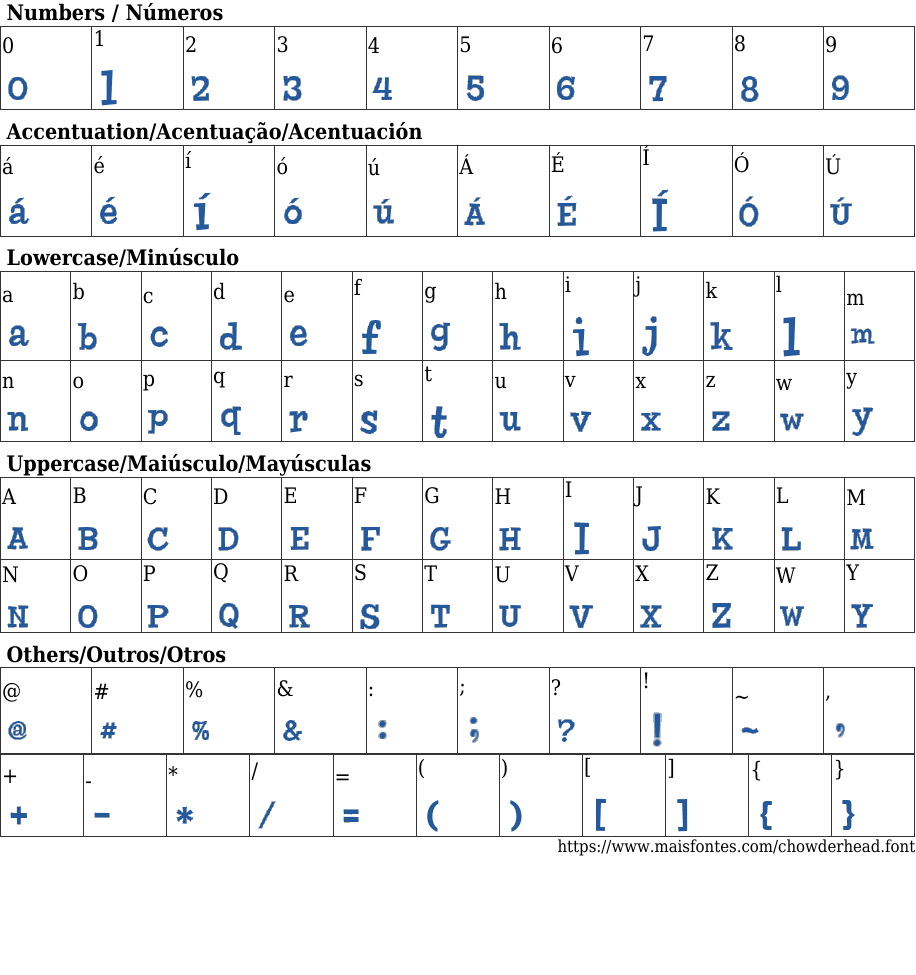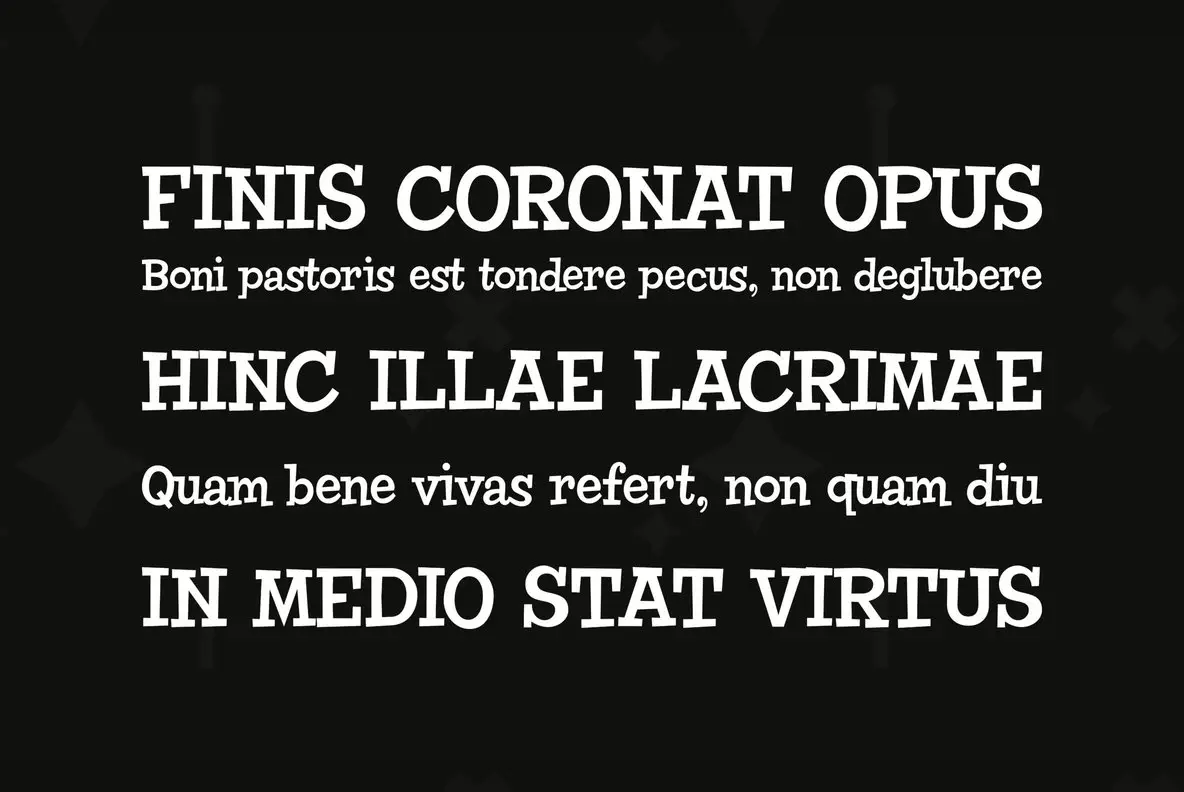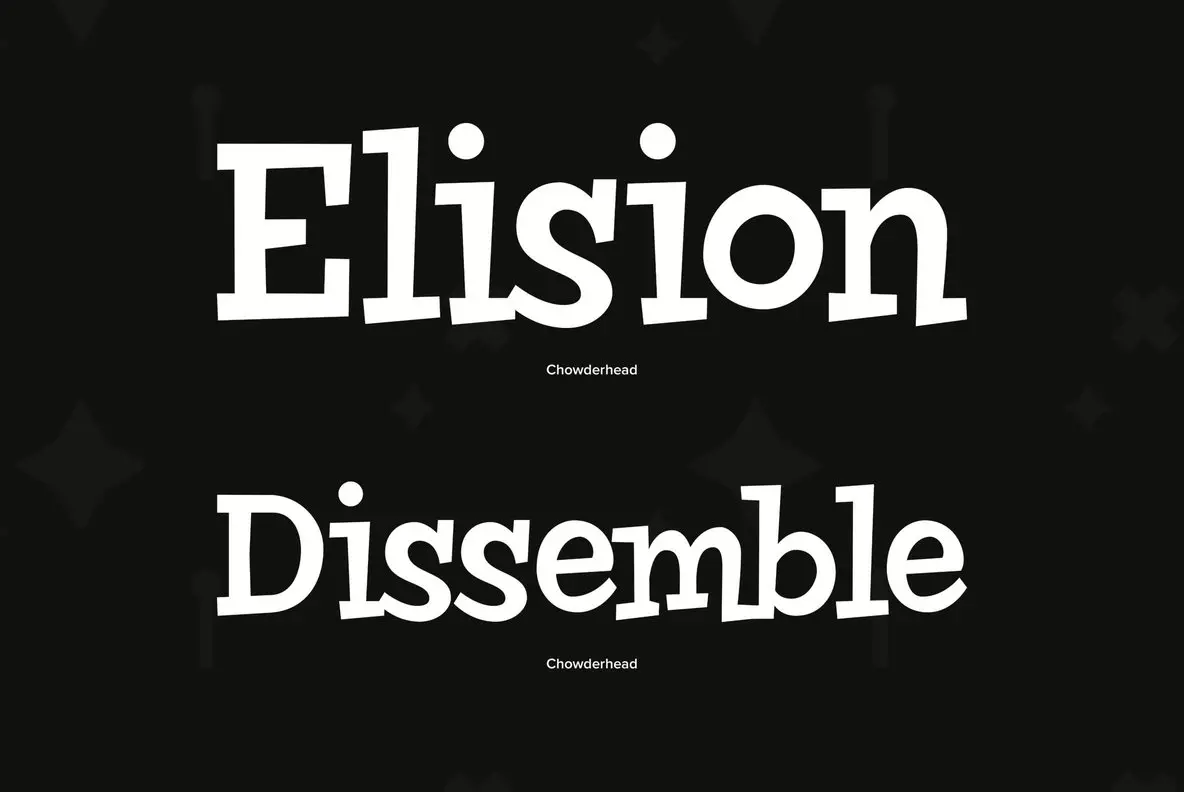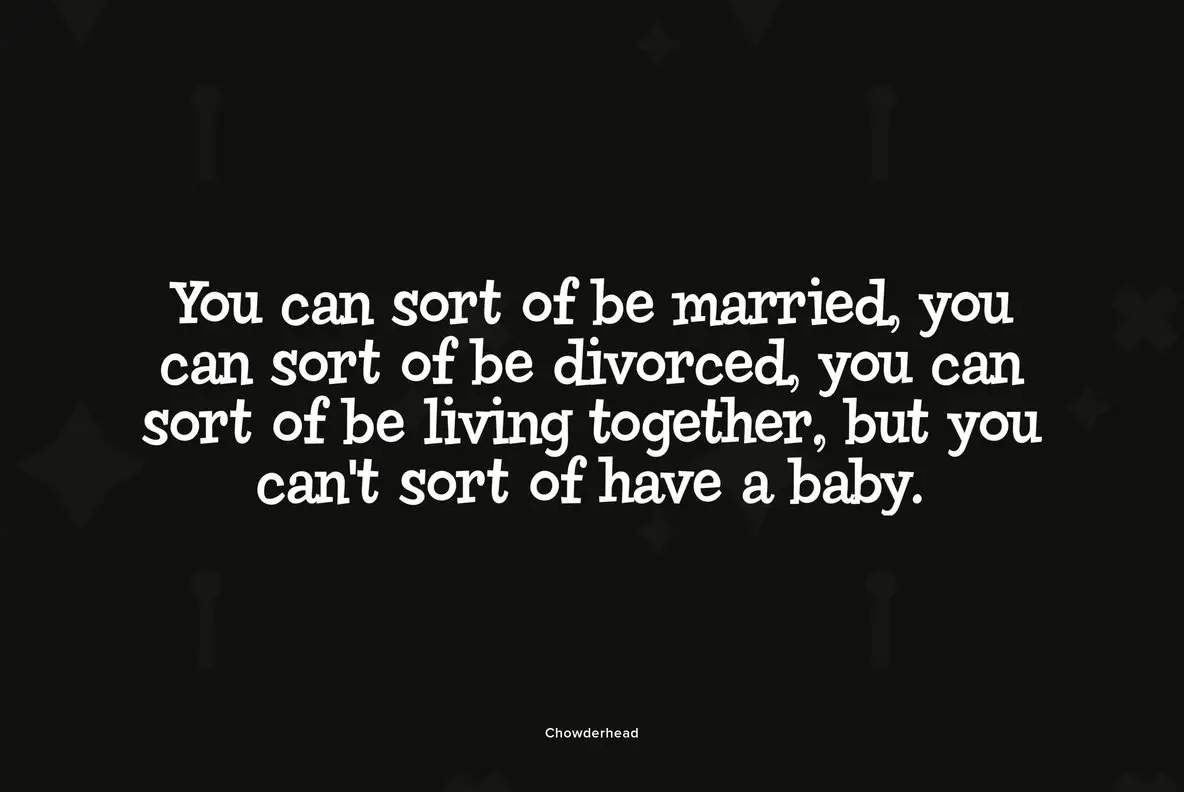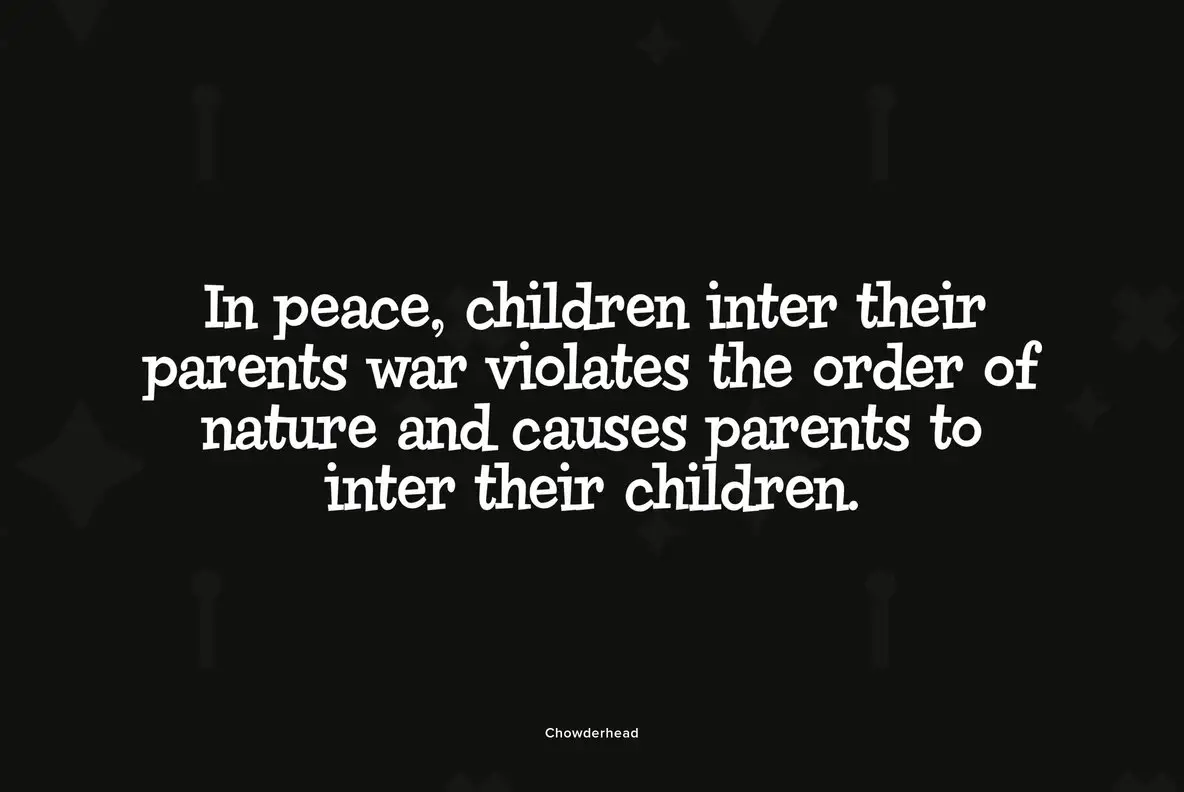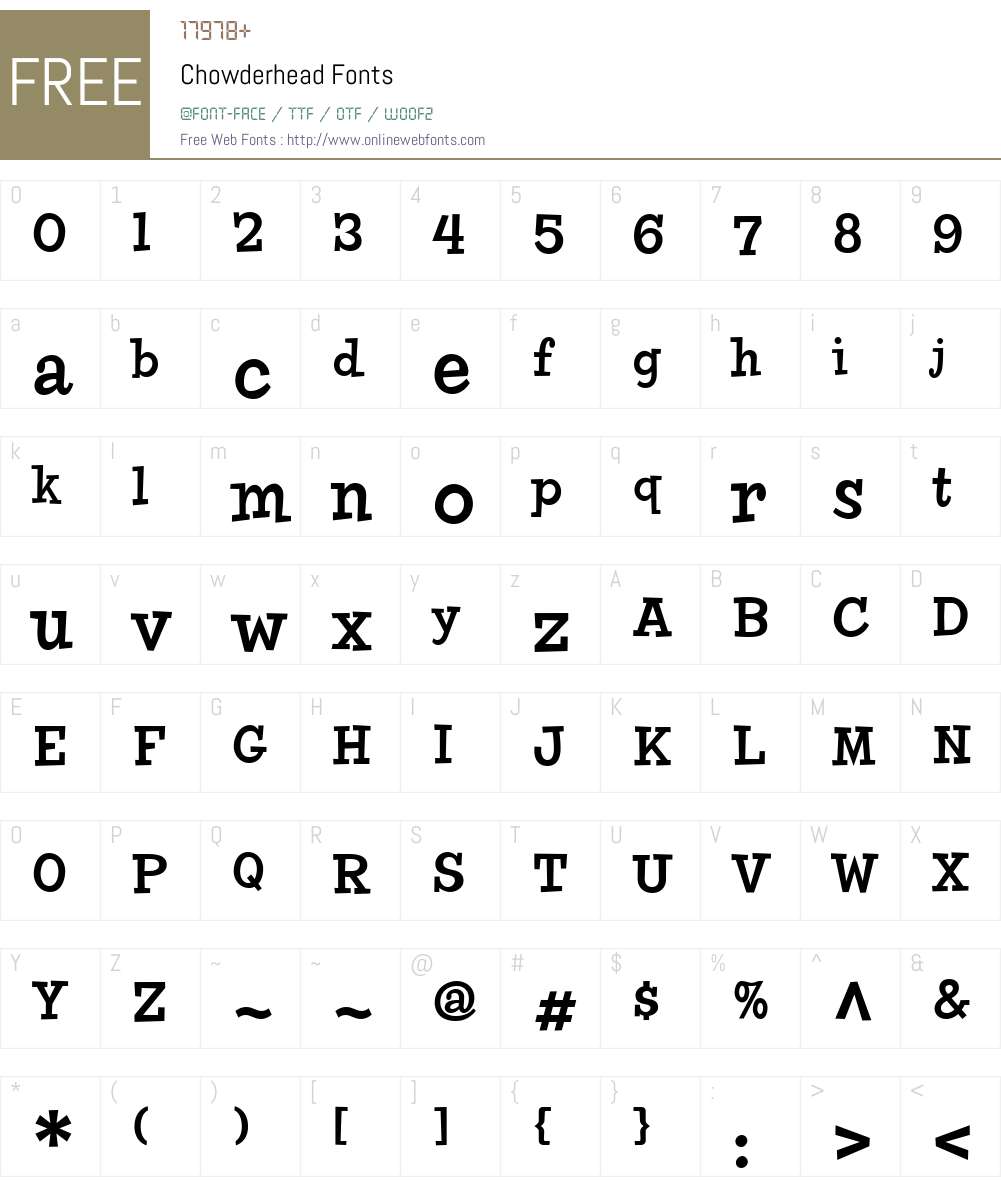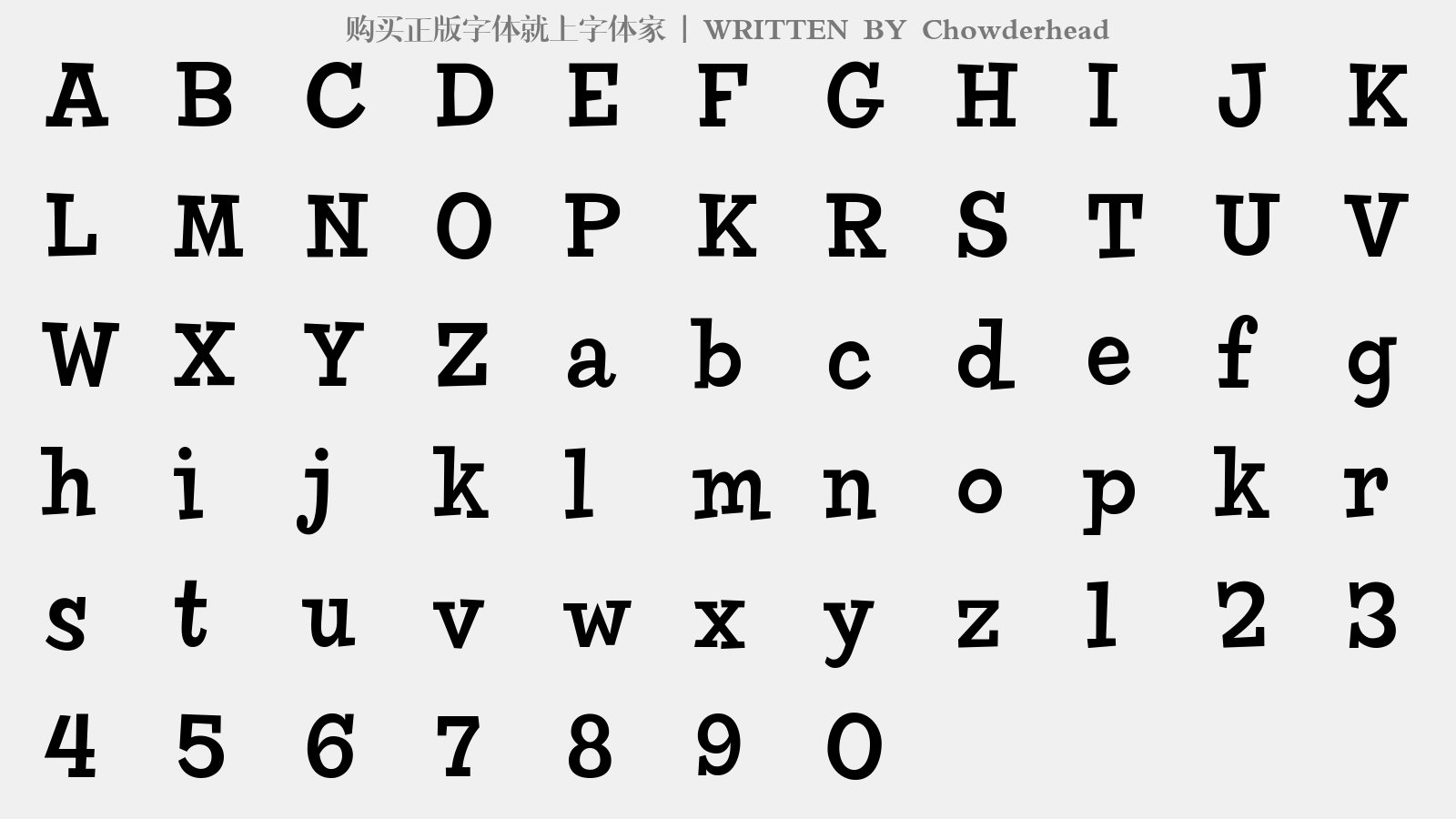
Chowder Head Font . Medium), 282 characters in total. Download 186,286 free fonts at ufonts.com. Chowderhead version 1.000 2004 initial release font (font family name: Examples and download link for the chowderhead™ font designed by stuart sandler in 2004. Chowderhead is the perfect font for all your fun designs. 'find my font' is an easy to use application for identifying fonts in digital images. The chowderhead font was designed by stuart. Dig in and get silly with this casual retro serif font! Thousands of designers (famous or not) use the image font detection system to find a font or similar free fonts from an image. Dig in and get silly with this casual retro serif font!
Chowderhead version 1.000 2004 initial release font (font family name: Dig in and get silly with this casual retro serif font! The chowderhead font was designed by stuart. Examples and download link for the chowderhead™ font designed by stuart sandler in 2004. Thousands of designers (famous or not) use the image font detection system to find a font or similar free fonts from an image. 'find my font' is an easy to use application for identifying fonts in digital images. Chowderhead is the perfect font for all your fun designs. Dig in and get silly with this casual retro serif font! Download 186,286 free fonts at ufonts.com. Medium), 282 characters in total.
Chowder Head Font Chowderhead is the perfect font for all your fun designs. Examples and download link for the chowderhead™ font designed by stuart sandler in 2004. Medium), 282 characters in total. Chowderhead is the perfect font for all your fun designs. 'find my font' is an easy to use application for identifying fonts in digital images. Thousands of designers (famous or not) use the image font detection system to find a font or similar free fonts from an image. The chowderhead font was designed by stuart. Chowderhead version 1.000 2004 initial release font (font family name: Download 186,286 free fonts at ufonts.com. Dig in and get silly with this casual retro serif font! Dig in and get silly with this casual retro serif font!